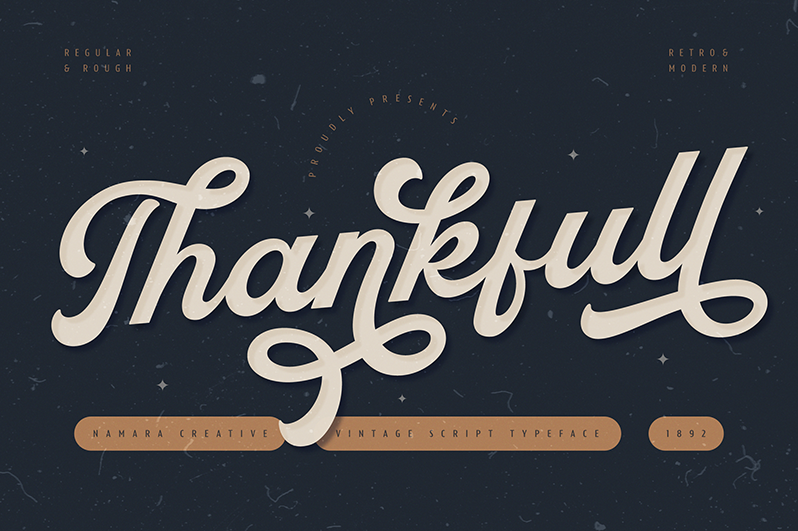
Thankfull Script
Namara Creative · Regular · Thankfull Script
Introducing Thankfull, a bold and elegant vintage script typeface that blends nostalgic charm with modern flair. By installing or using this font, you are agree to the Product Usage Agreement: - This font is PERSONAL USE ONLY. NO COMMERCIAL USE ALLOWED! - Link to purchase commercial license https://onedsgn.com/product/thankfull-script - Any donation are very appreciated. Paypal link for donation : https://paypal.me/namaracreativestudio